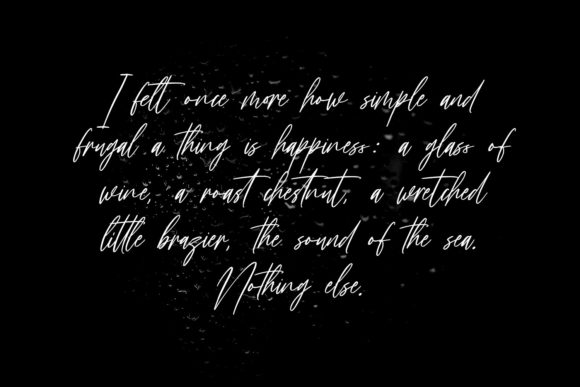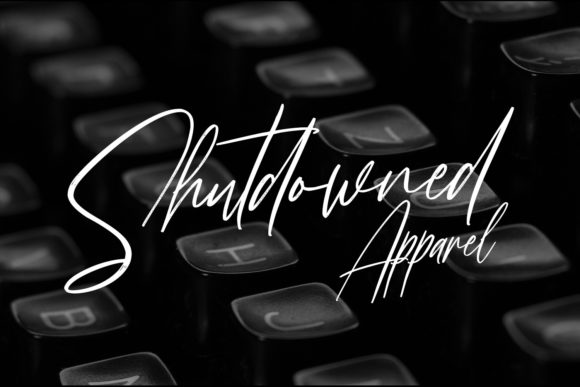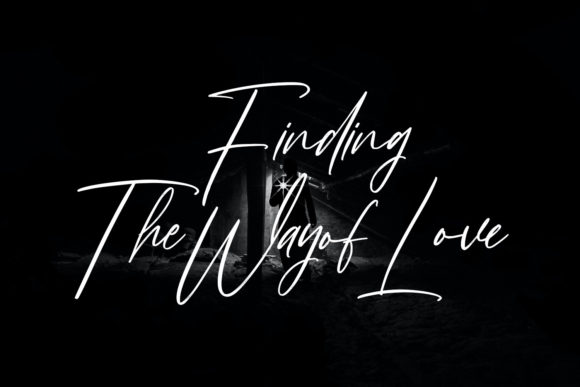
Introduction to Distractiles Font
Distractiles is a flowing handwritten font, described by an elegant touch, perfect for your favorite projects.
Key Features of Distractiles Font
Why Choose Distractiles Font?
Distractiles Font offers exceptional quality and versatility, making it a valuable addition to your design toolkit. Whether you’re creating for personal projects or commercial use, Distractiles Font delivers professional results.